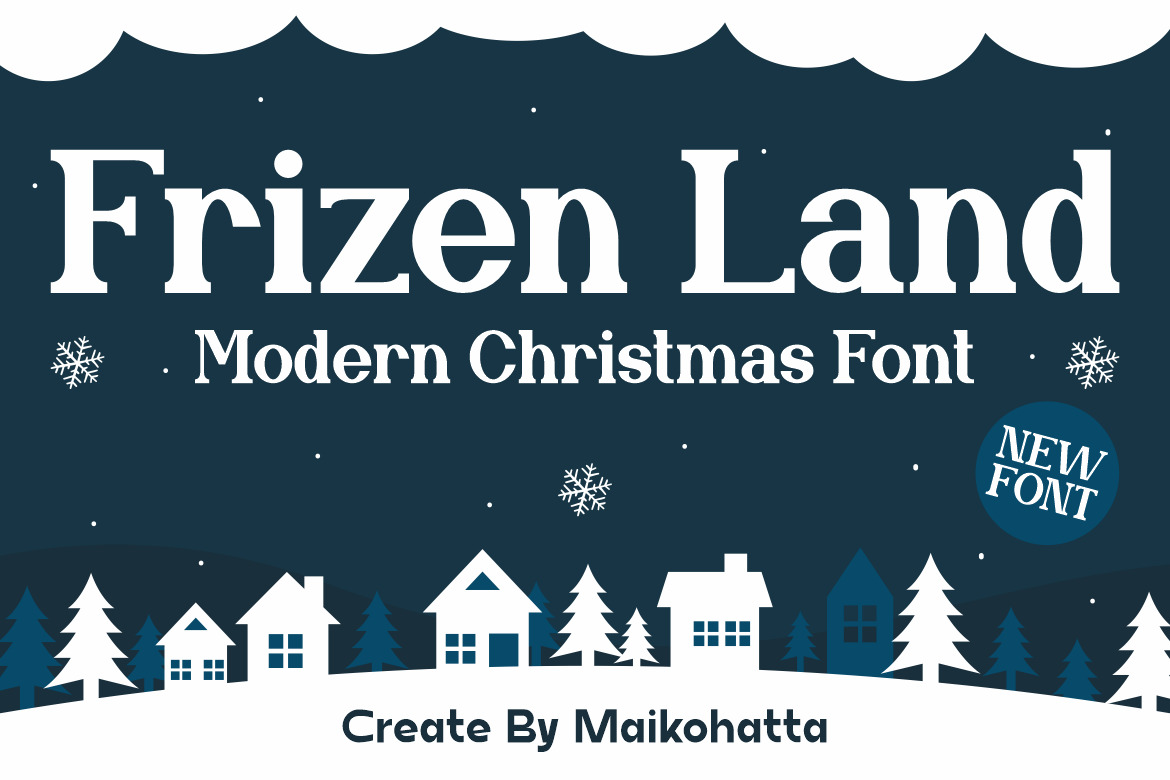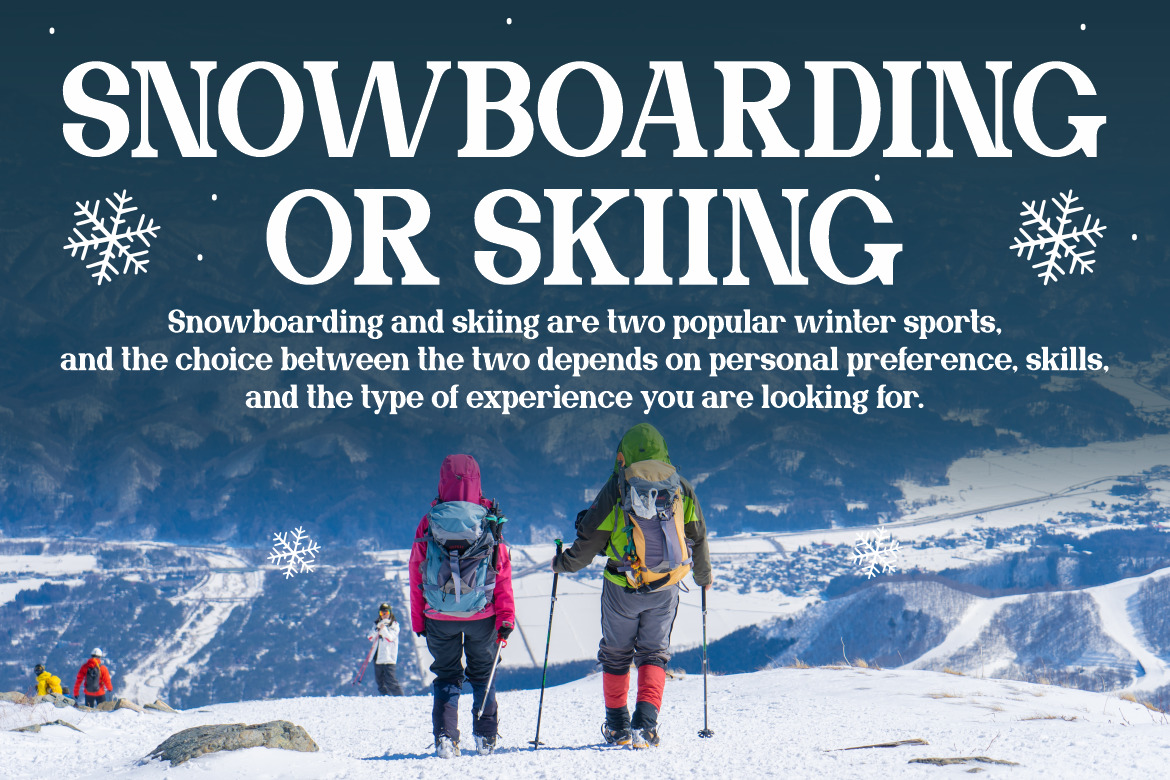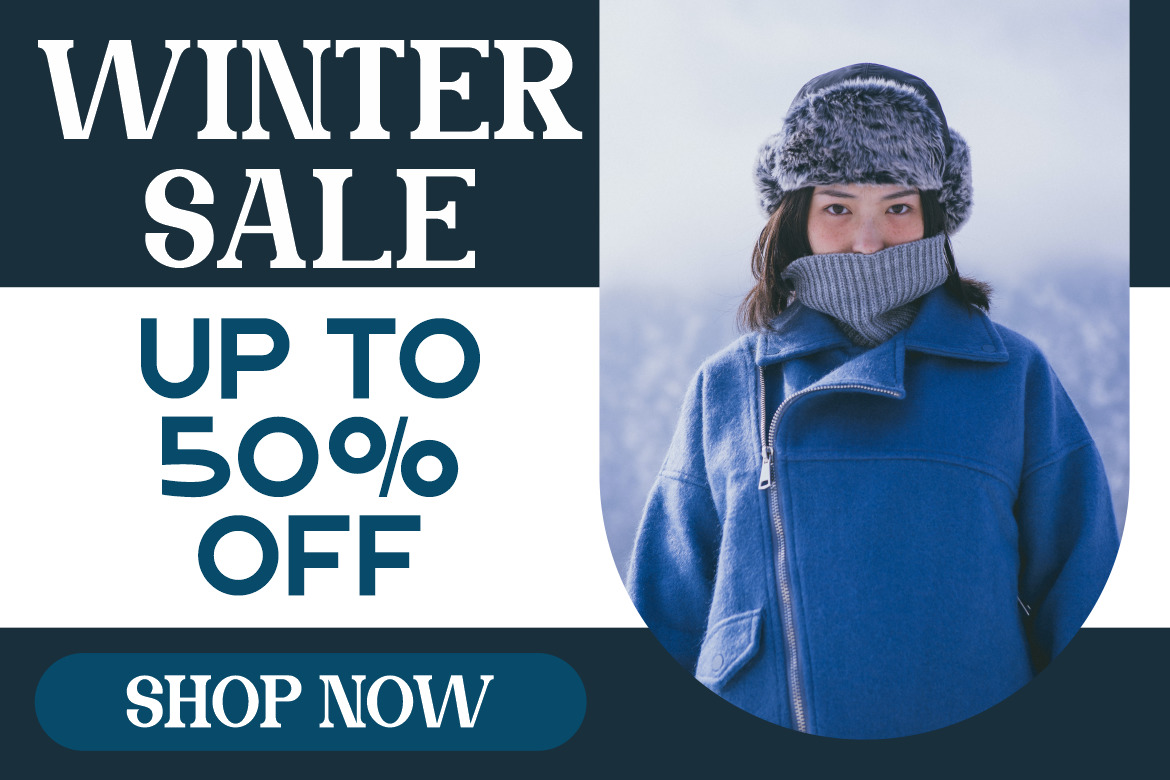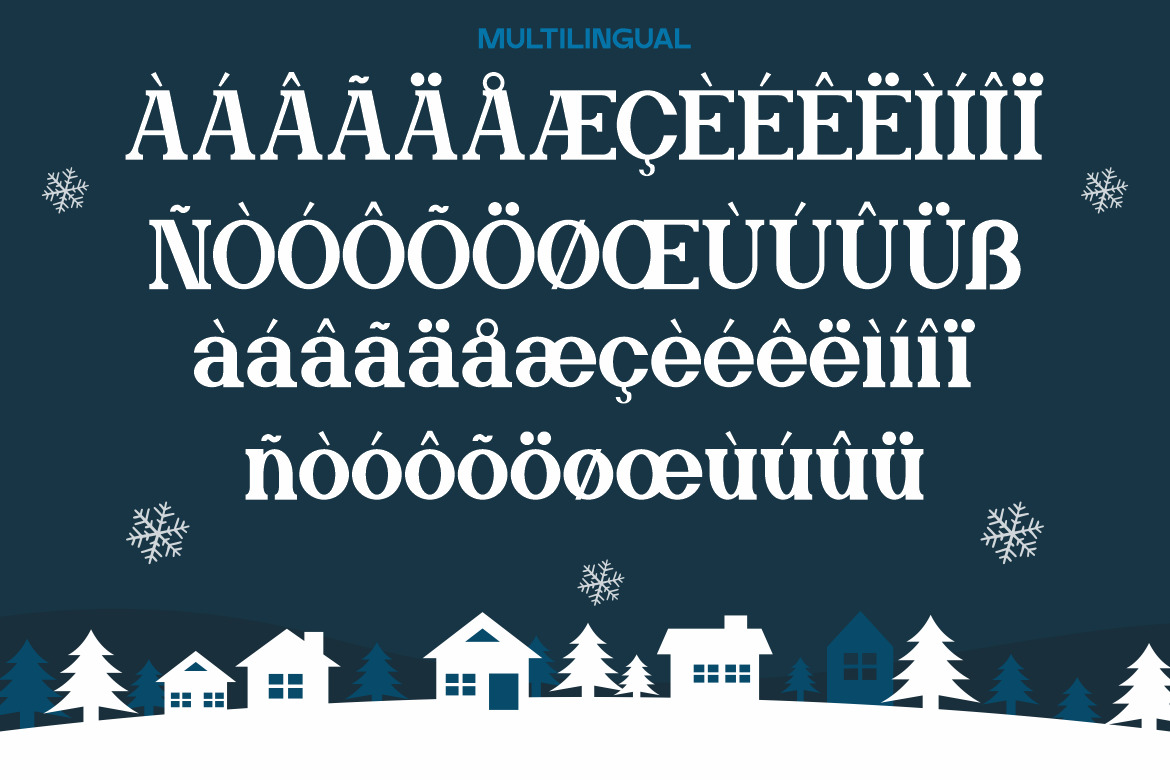
Frizen Land - Modern Christmas Font
Introducing our new product **Frizen Land** - Modern Christmas Font
This font is specifically designed to create a Christmas atmosphere and mood. It is often used in graphic design, greeting cards, posters, and various other visual elements related to the celebration of Christmas.
* Uppercase
* Lowercase
* Multilingual